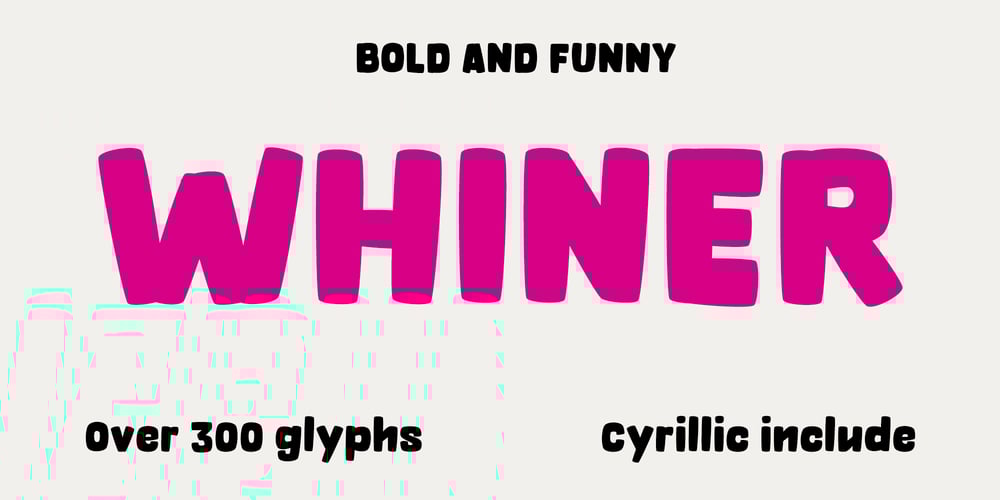
OT Whiner Font Family was designed by Evgeniy Agasyants and published by Overtype. OT Whiner contains 1 styles and family package options. The Whiner is a cheerful font, a well—fed merry fellow and a joker. There are several interesting ligatures and Cyrillic alphabet included. Perfect for decorating any kind of fun and entertainment